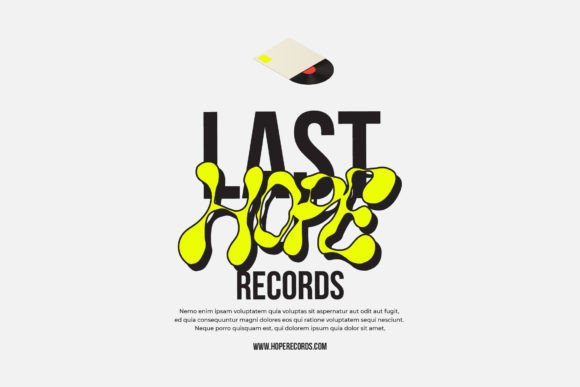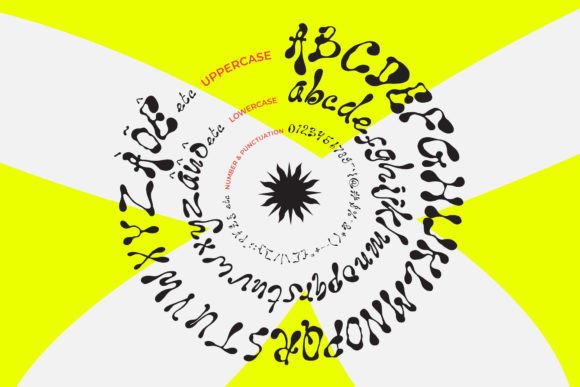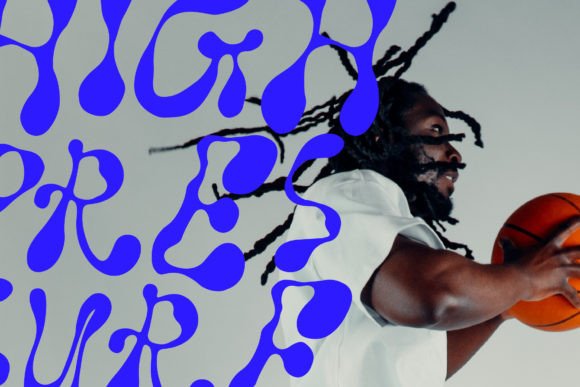
The Designer’s Dilemma: How Fungiside Font Became My Go-To for Unconventional Projects
I still remember the frustration of working on a project, determined to find the perfect font that would bring my design to life. My client wanted something bold, something unconventional, something that would make their brand stand out in a crowded market. I scoured the internet, tried out countless fonts, but nothing seemed quite right. That was until I stumbled upon Fungiside Font. This avant-garde font has been a game-changer for me, and I’m excited to share my experience with you.
An Honest Review of Fungiside Font
- ✨ Unique and unconventional design that adds a touch of personality to any project
- ✅ Bold strokes and unusual angles make for a striking and memorable visual statement
- ⚡️ Asymmetrical letterforms evoke a sense of movement and unpredictability
- 🎨 Perfect for designs that demand a touch of the unusual, such as experimental branding, artistic typography, or avant-garde advertising
While Fungiside Font is an amazing addition to any design project, it’s not without its quirks. For example:
- 🤔 Some characters may not be suitable for body text or reading-heavy content due to their unconventional design
- ⚠️ Limited legibility at small font sizes, making it best suited for headlines or titles
- Experiment with OpenType features, such as stylistic alternates, to add more personality to your text
The Backstory of Fungiside Font
Fungiside Font was designed by a team of creatives who wanted to push the boundaries of typography. Inspired by the world of science fiction and experimental art, they aimed to create a font that would evoke a sense of movement and unpredictability. The result is a truly unique and captivating font that’s perfect for designers looking to add a touch of personality to their projects.
| Font Name | Fungiside Font |
| Author | Sundaylab |
| What is Fungiside Font best suited for? | Fungiside Font is best suited for designs that demand a touch of the unusual, such as experimental branding, artistic typography, or avant-garde advertising. |
| Can I use Fungiside Font for body text? | While Fungiside Font can be used for body text, it’s not recommended due to its unconventional design and limited legibility at small font sizes. |
| Is Fungiside Font available in different weights or styles? | Currently, Fungiside Font is available in a single weight, but the design team is working on expanding the font family with additional weights and styles. |